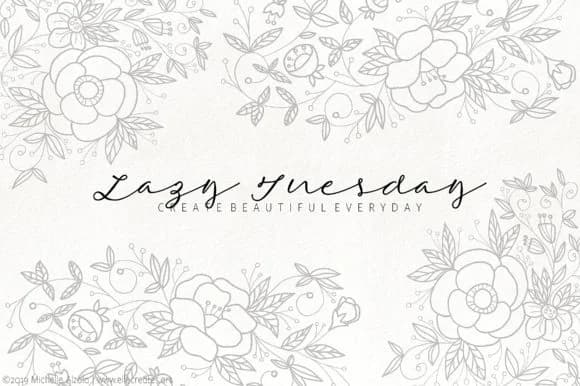
1 / 3About Morri Belle Script Font
This typeface brings genuine warmth to every project. Morri Belle Script Font, designed by Michelle Alzola, strikes that rare balance between playful energy and refined elegance that works across different contexts. The flowing letterforms sit beautifully on wedding invitation suites, artisan cosmetics packaging, personalized greeting cards, and small-batch vinyl cutting projects where authentic character makes a real difference. You get that undeniable handwritten sensation while maintaining legibility across different scales, which is exactly what makes this font genuinely versatile and practical.
Where Morri Belle truly excels is in branding and packaging applications. Boutique product labels gain immediate personality and warmth, small business logos suddenly feel intentionally designed rather than downloaded, and artisan stationery collections develop real presence. The script reads as human and deliberate, which is precisely what audiences connect with in design. When so many fonts feel sterile or artificial, having a typeface that captures authentic handwritten texture becomes genuinely valuable.
Pair Morri Belle Script with a clean, geometric sans-serif to balance your layouts and create clear hierarchy. Let the script shine as your primary visual element while the sans-serif supports body text and secondary information. Morri Belle Script is on Creative Fabrica, ready to add that authentic handcrafted dimension to your next project.
Morri Belle Script Font is a script font that shines as a display or heading face. Pair it with a clean sans-serif or serif font for body text β the contrast creates a clear hierarchy while the two styles stay balanced and easy to read.